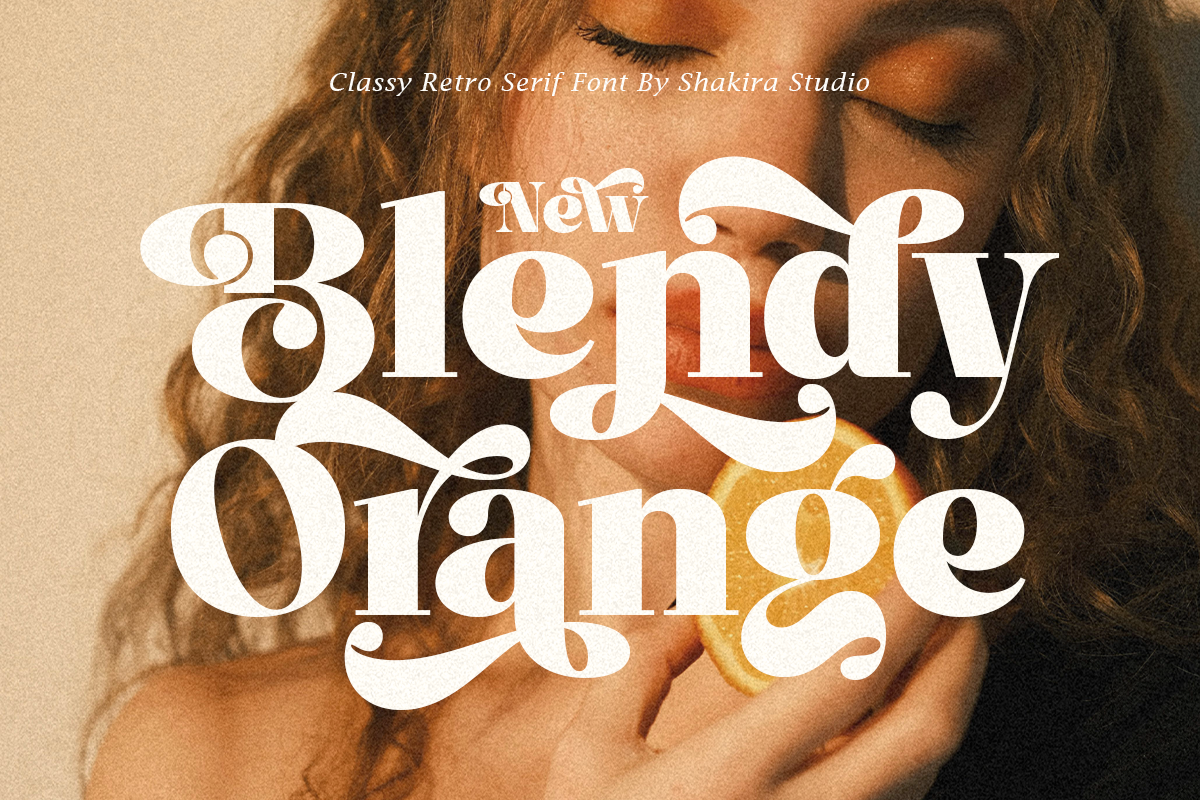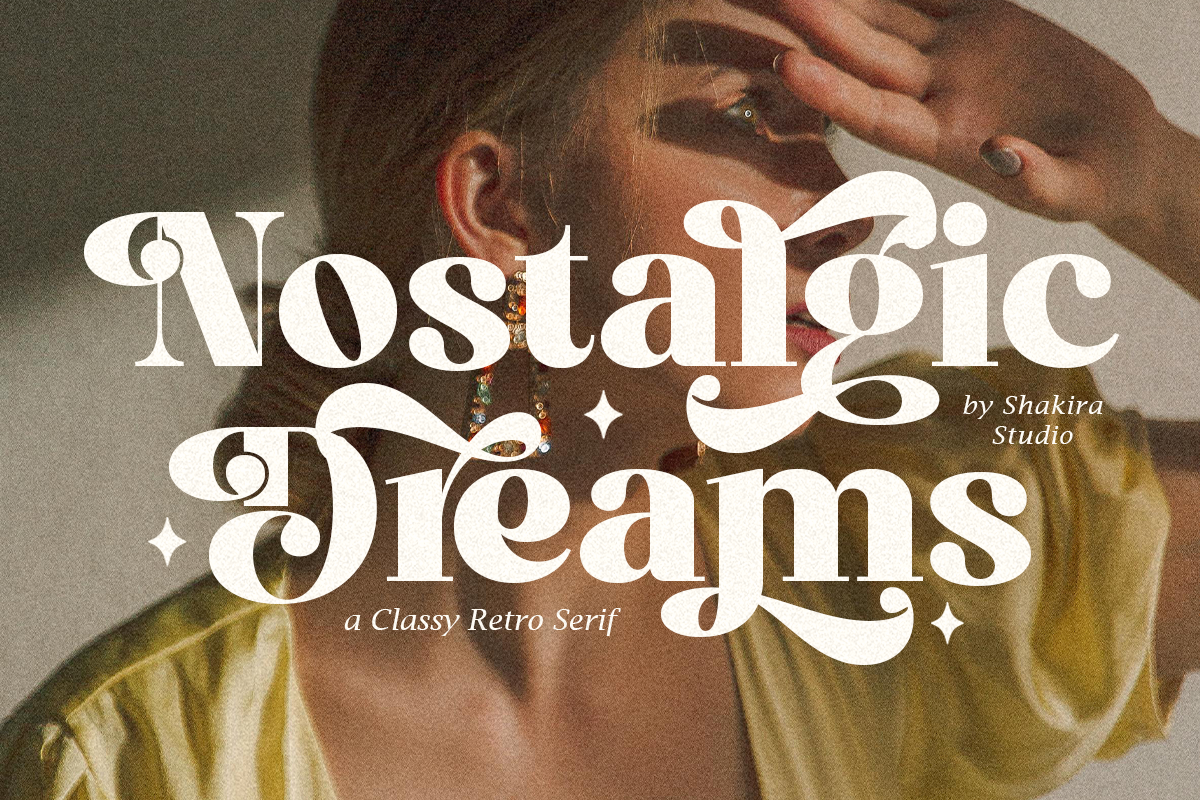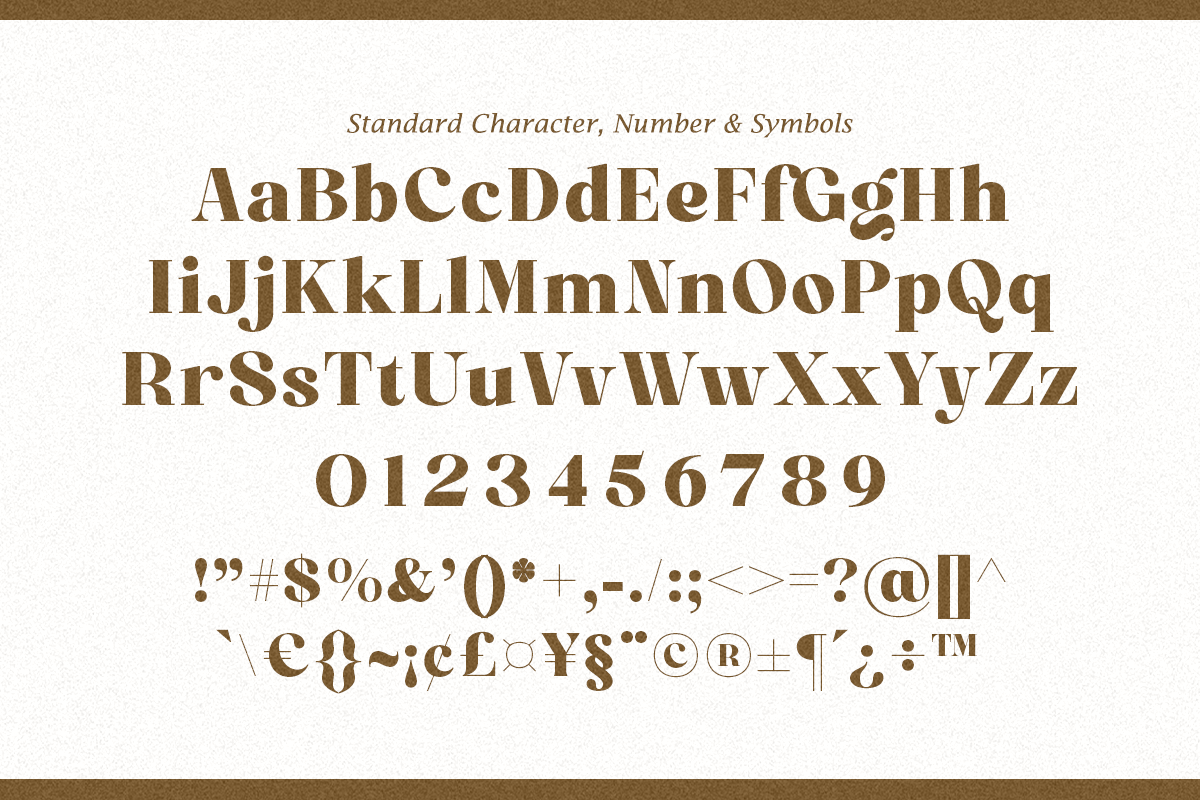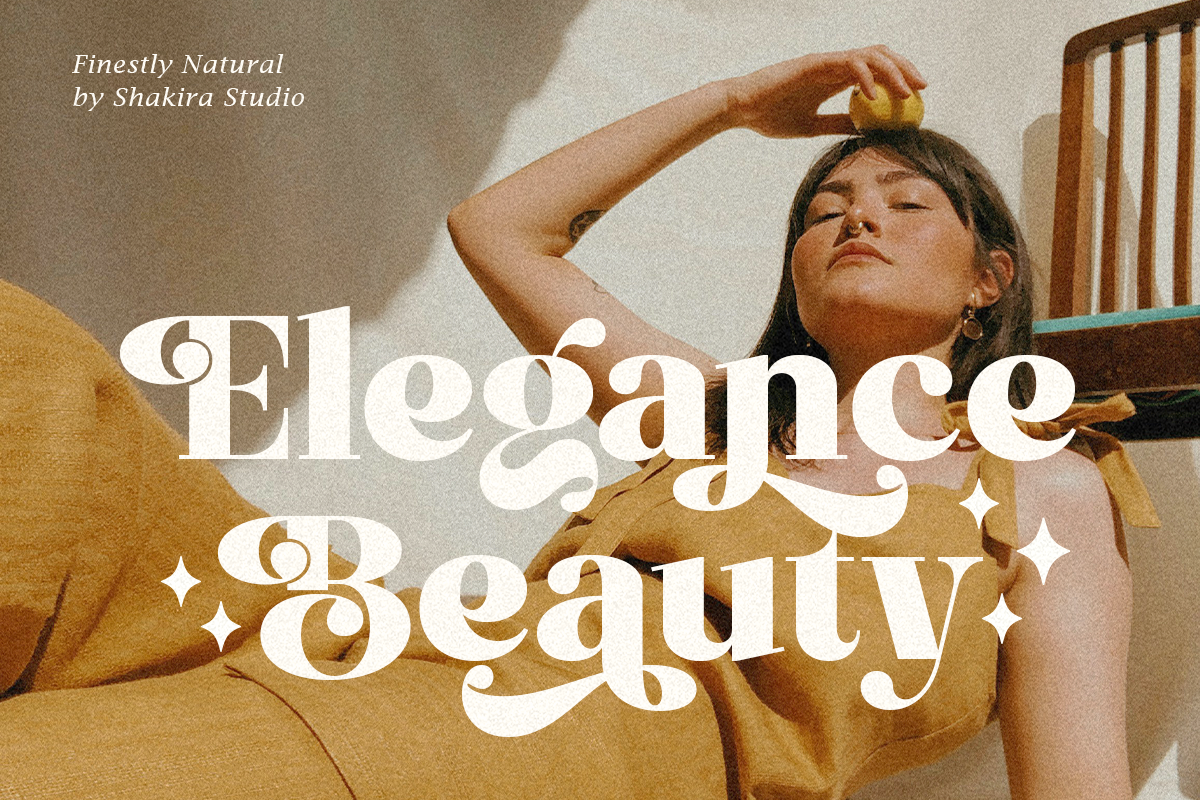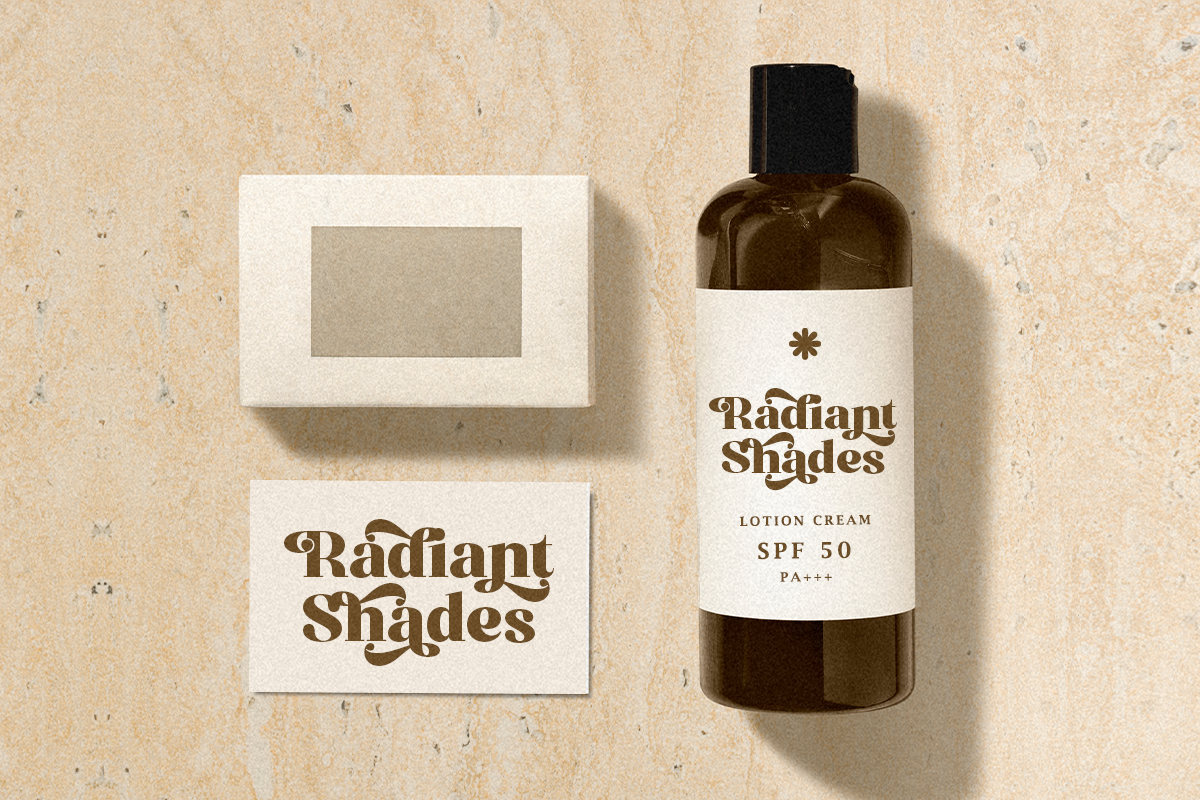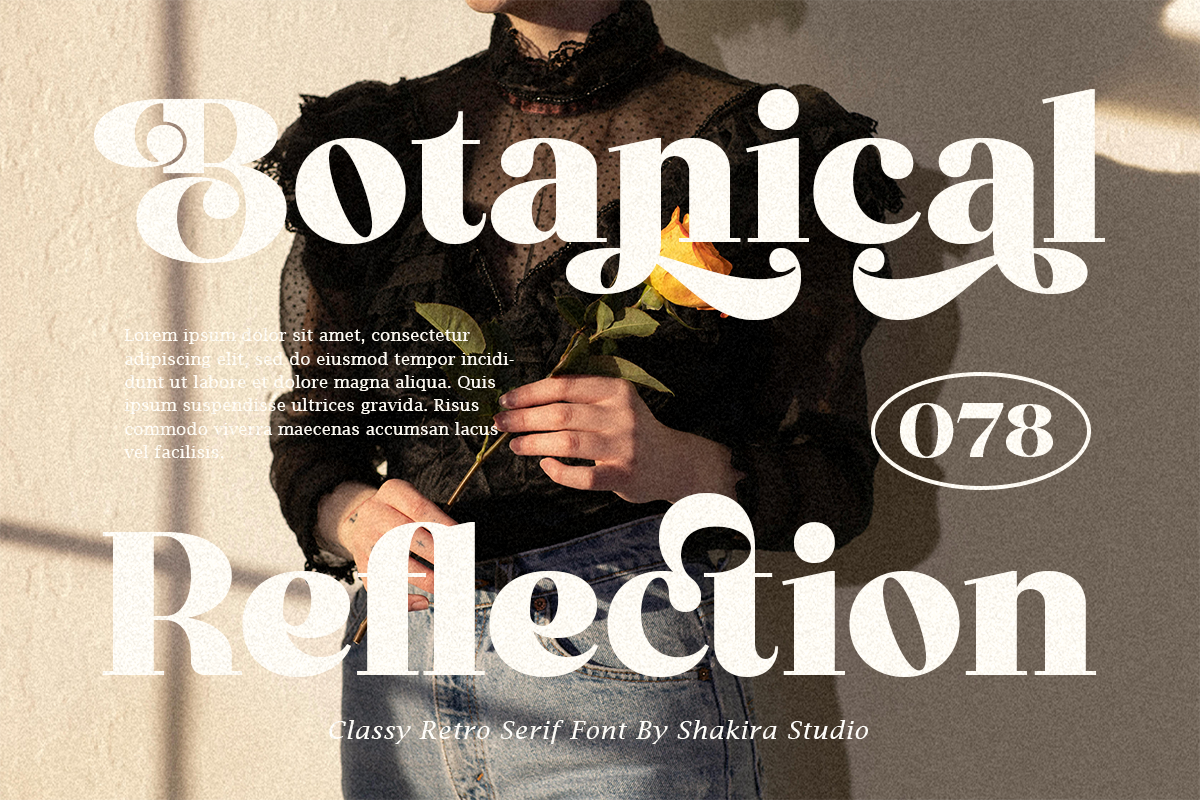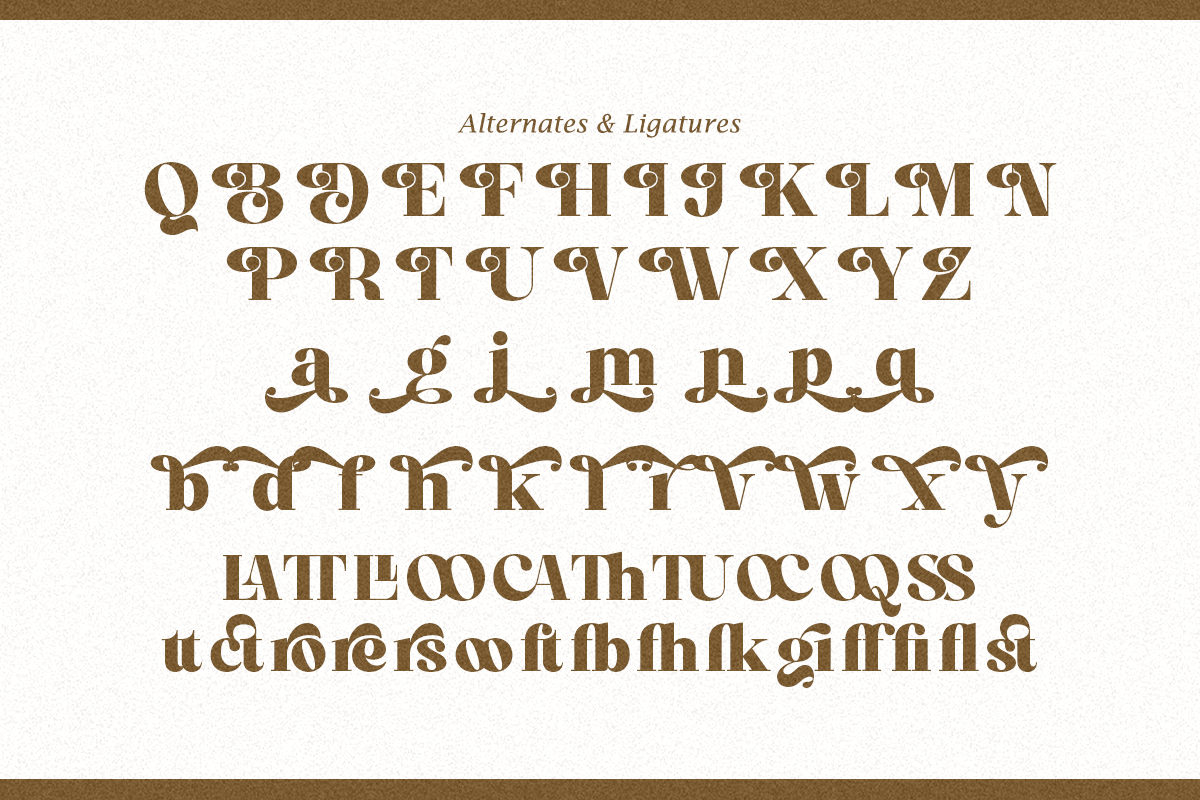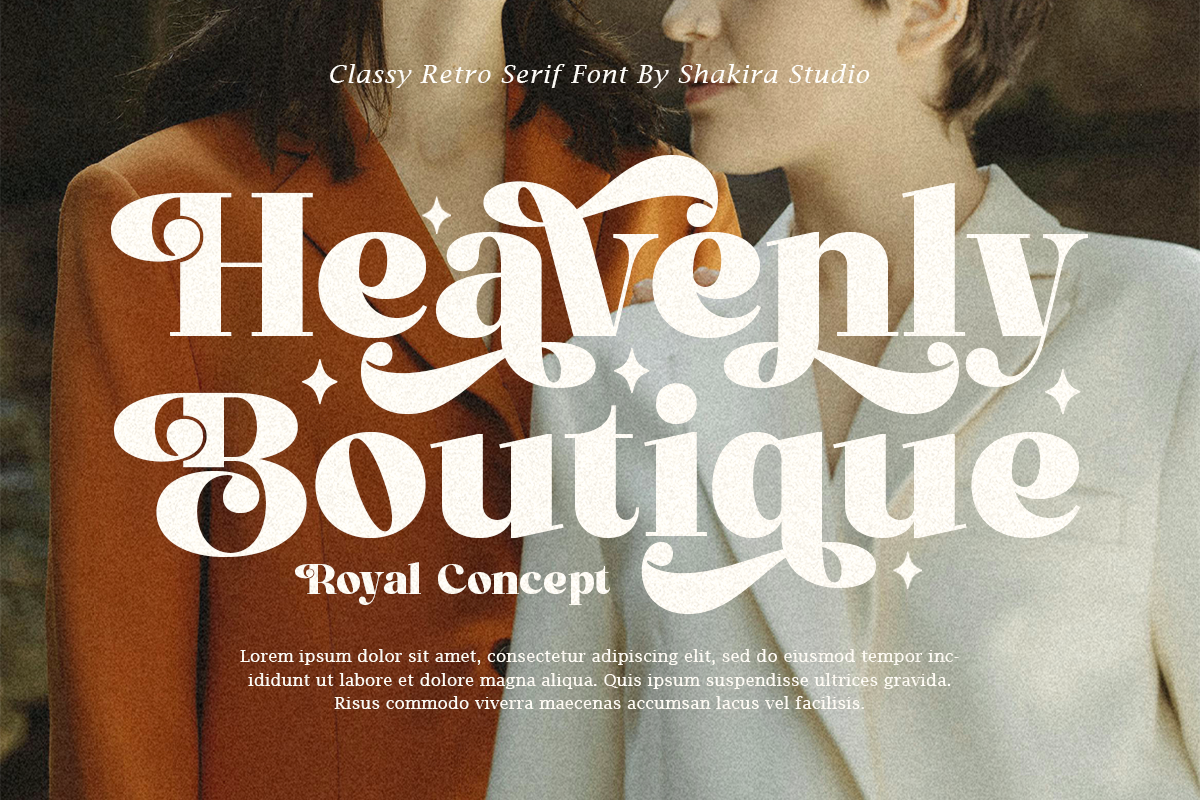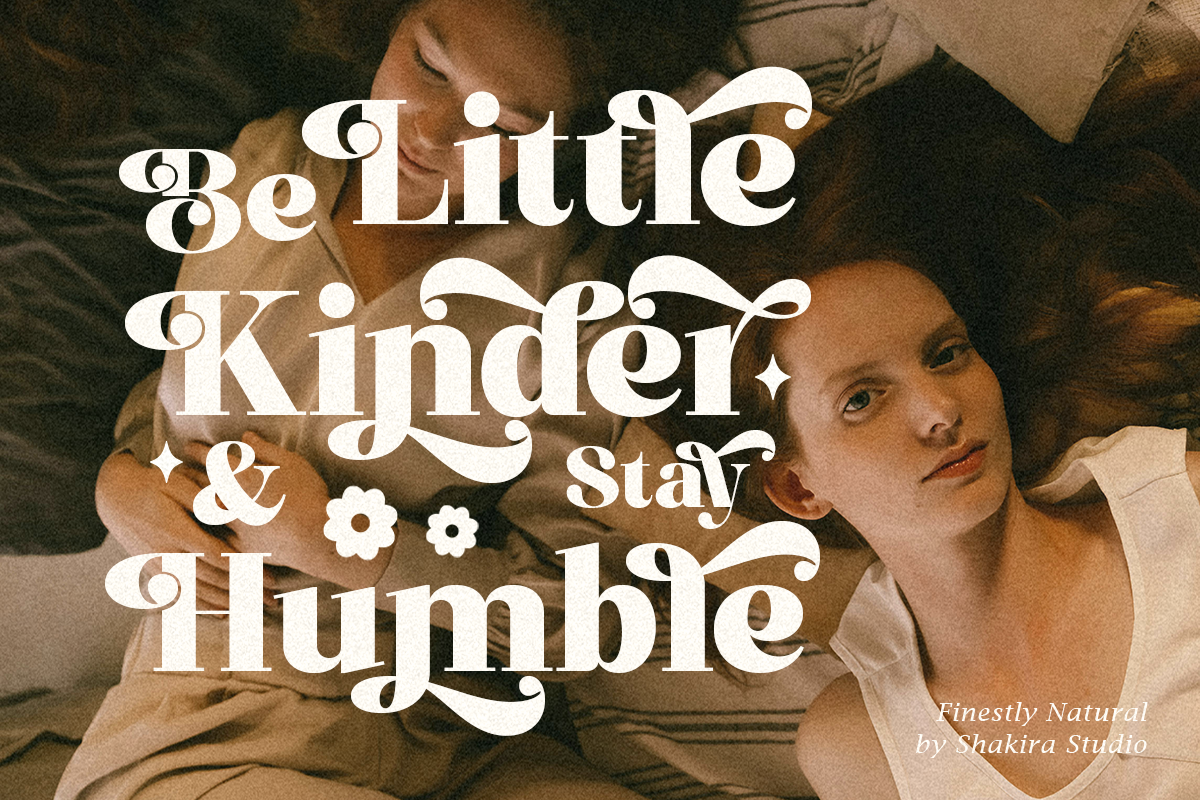
Finestly Natural - Retro Serif
"Introducing Finestly Natural, a Serif font that exudes retro classiness. Perfect for creating elegant and timeless designs, this font comes with stylistic alternates and ligatures that add a touch of uniqueness to your work. Whether you're designing logos, invitations, or any creative project, Finestly Natural ensures a sophisticated and memorable look."
- Regular & Italic
- All Multilingual symbol
- Opentype features ( ligature, alternate )